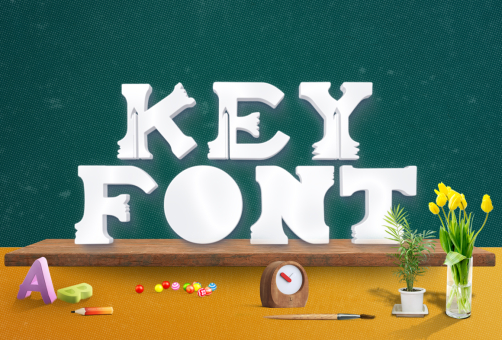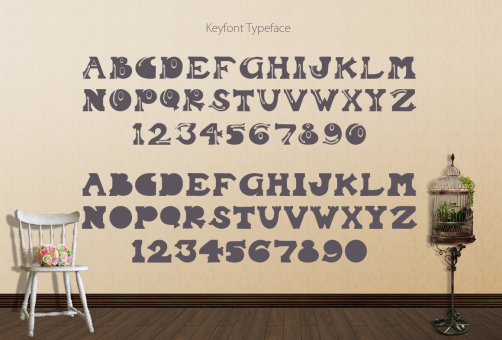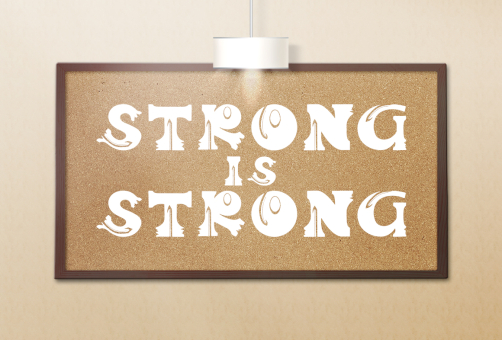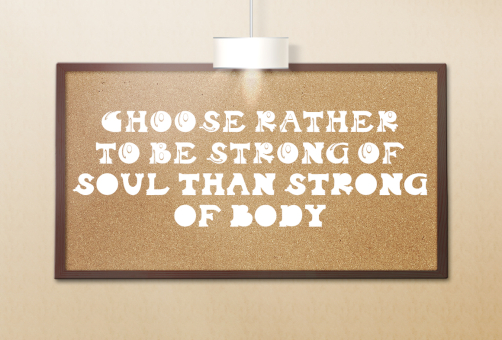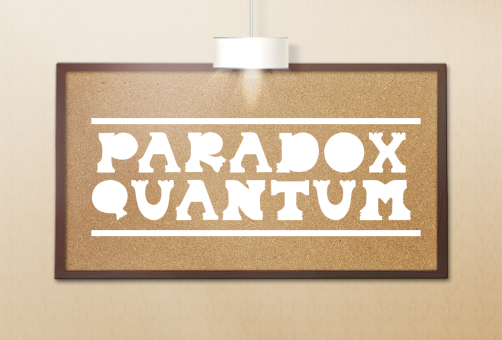
Keyfont
Keyfont inspired by key. Keyfont typeface includes a full set Uppercase letters and numerals .Could help to good display, uses for labeling, clothing, poster, film title, gigs, or cover album and etc.